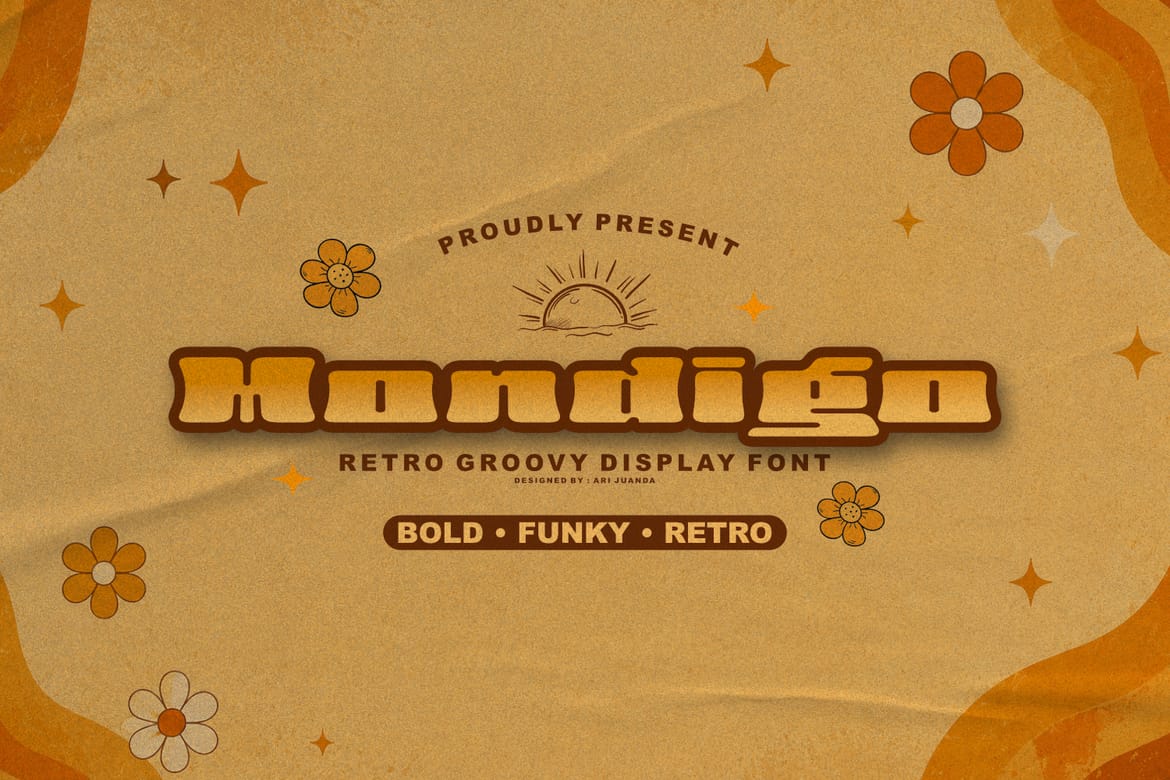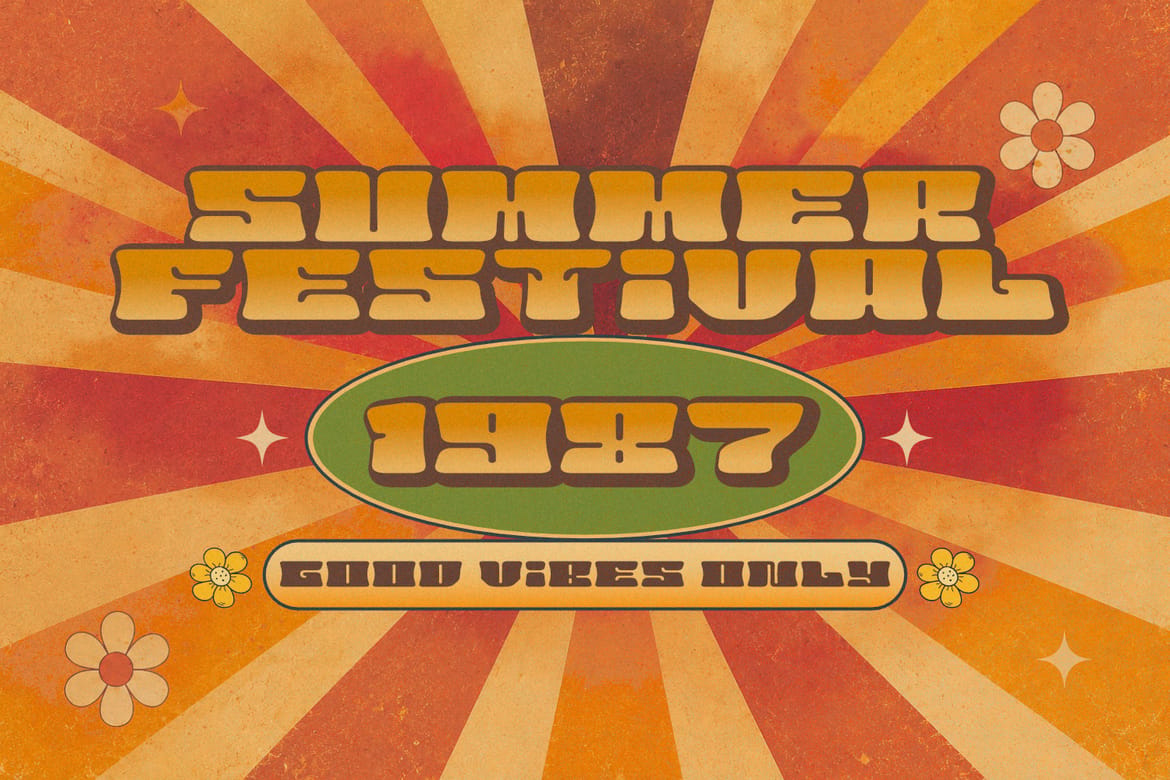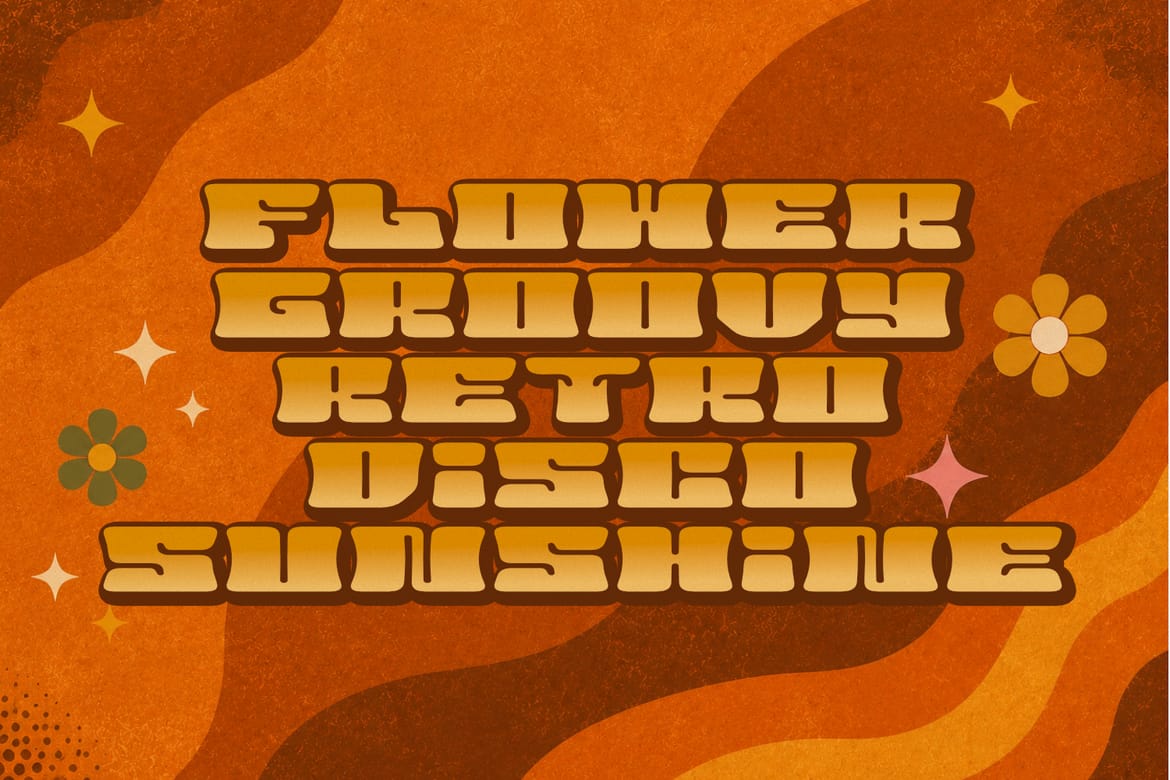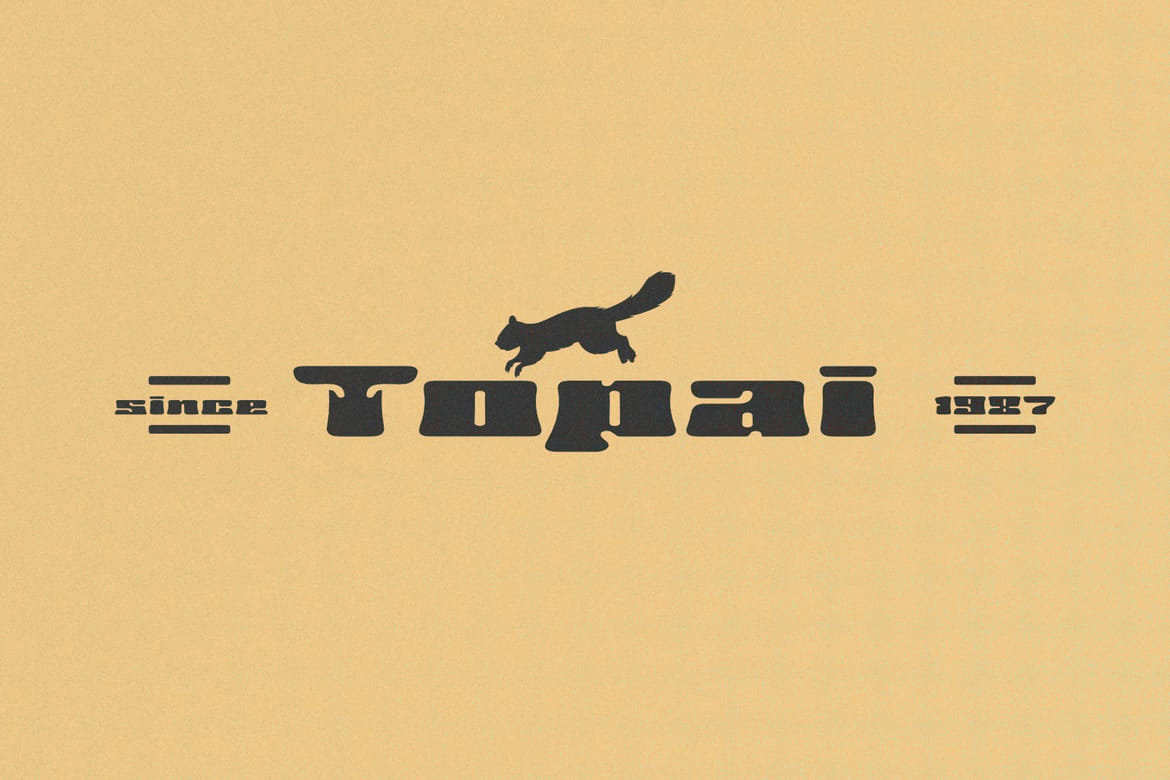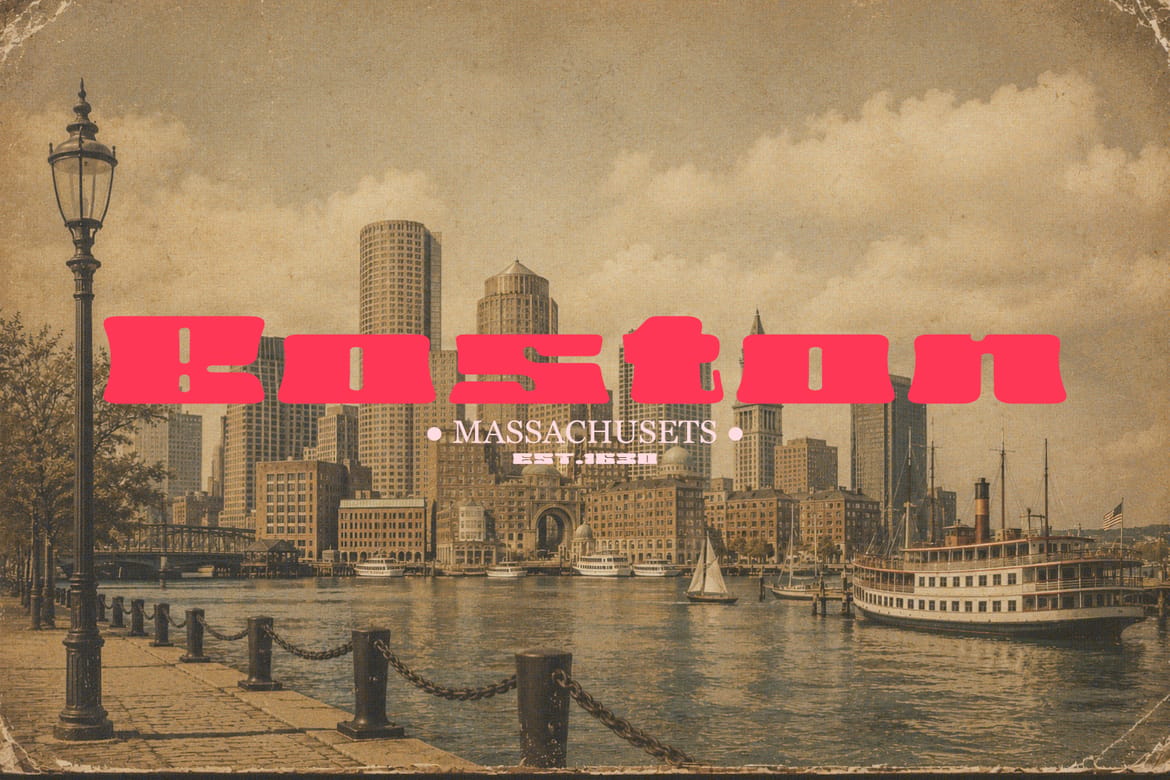
Mondigo
Mondigo is a bold vintage display font inspired by the iconic typography of the 70s and classic Western aesthetics. With its confident letterforms, smooth curves, and timeless character, Mondigo delivers an authentic retro feel that instantly brings warmth and personality to any design.
Whether you're creating nostalgic branding, rustic packaging, vintage posters, or eye-catching headlines, Mondigo offers a strong visual presence that stands out while remaining clean and easy to read. Its handcrafted appearance makes it an excellent choice for projects that celebrate heritage, adventure, and old-school craftsmanship.
From coffee shops and barbershops to beverage labels, outdoor brands, apparel, restaurant menus, and retro merchandise, Mondigo adds a bold, memorable touch that captures the spirit of a bygone era.
Perfect For
• Vintage & Retro Branding
• Western-Themed Designs
• Logos & Badges
• Posters & Signage
• Product Packaging
• Apparel & Merchandise
• Café & Restaurant Menus
• Social Media Graphics
• Book Covers & Editorial Headlines
Bring the timeless charm of vintage Americana into your next project with Mondigo—a bold display font crafted to make every headline unforgettable.